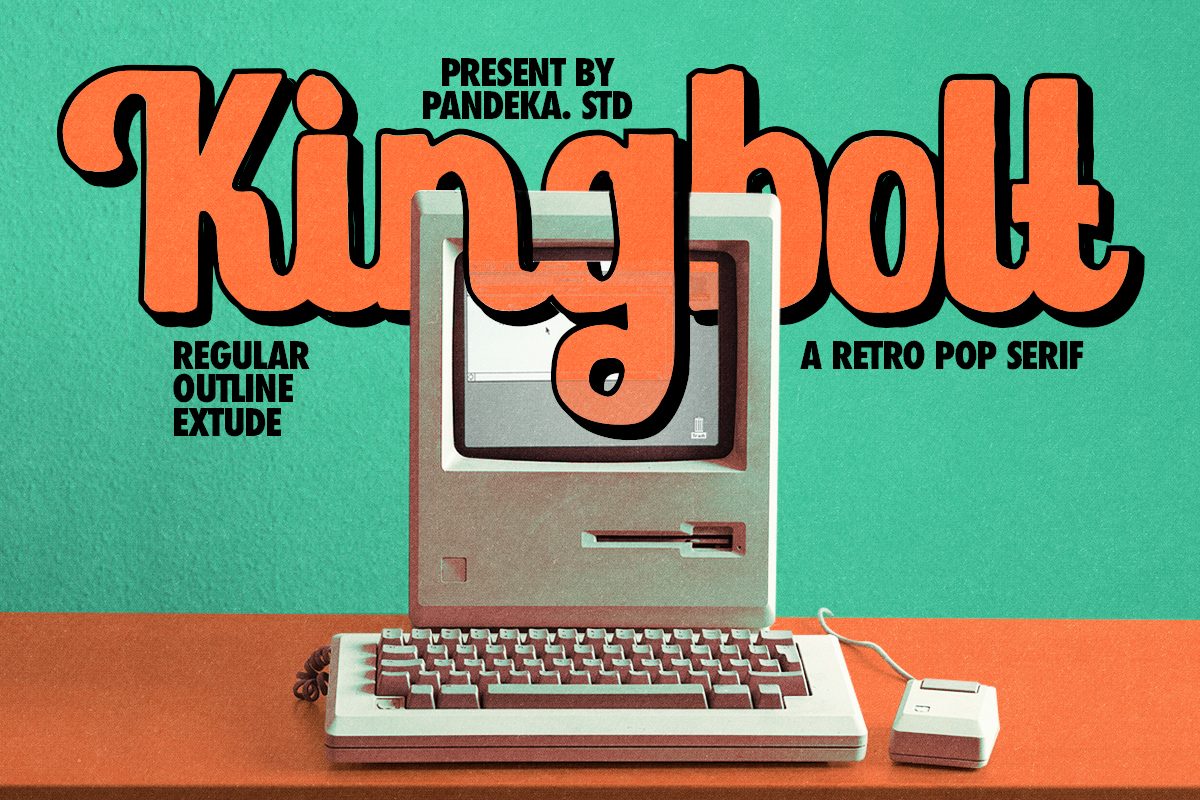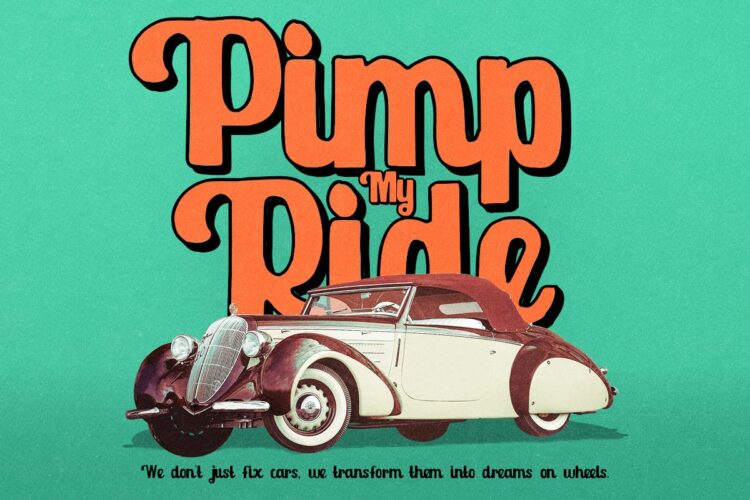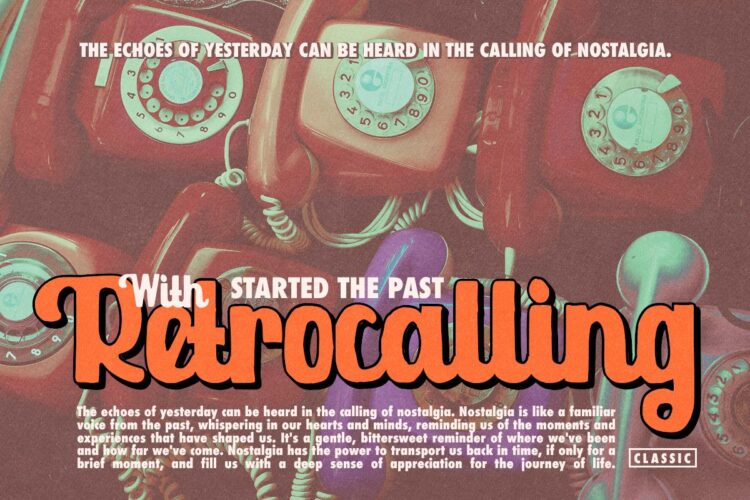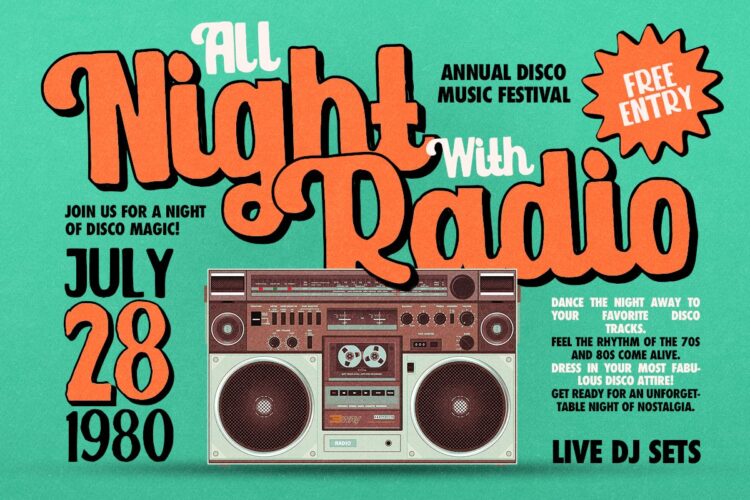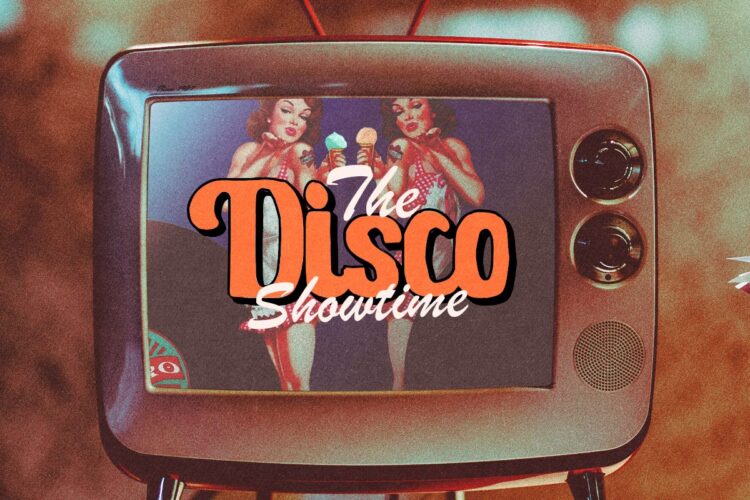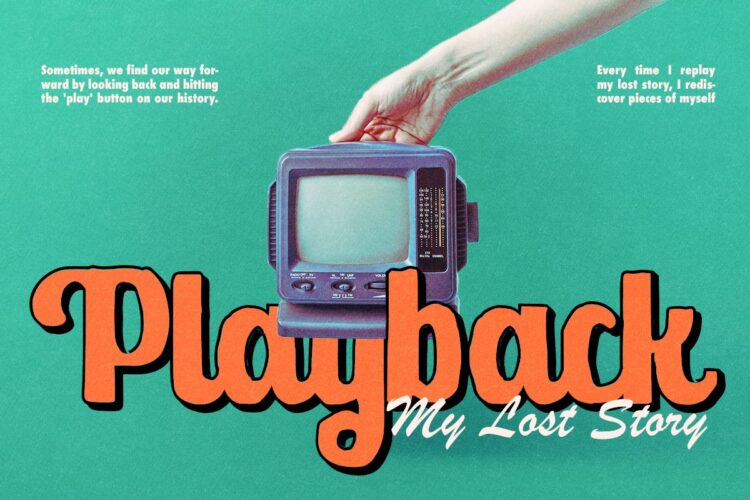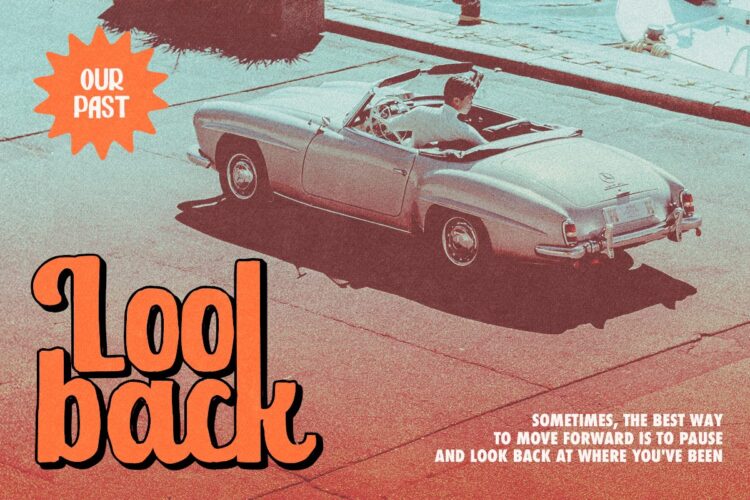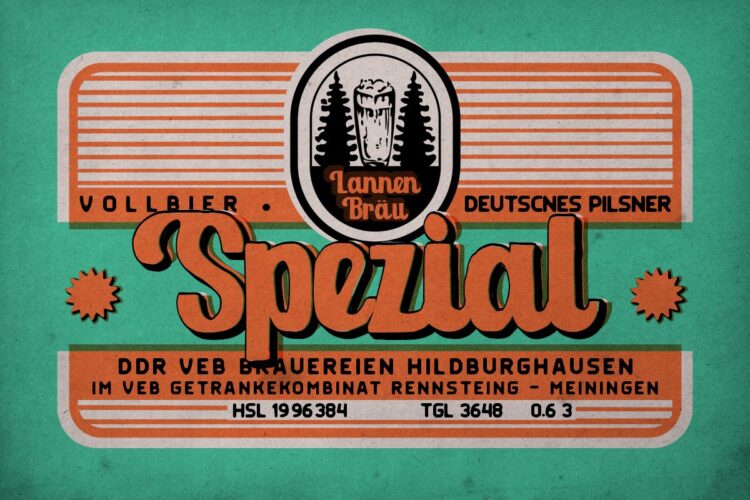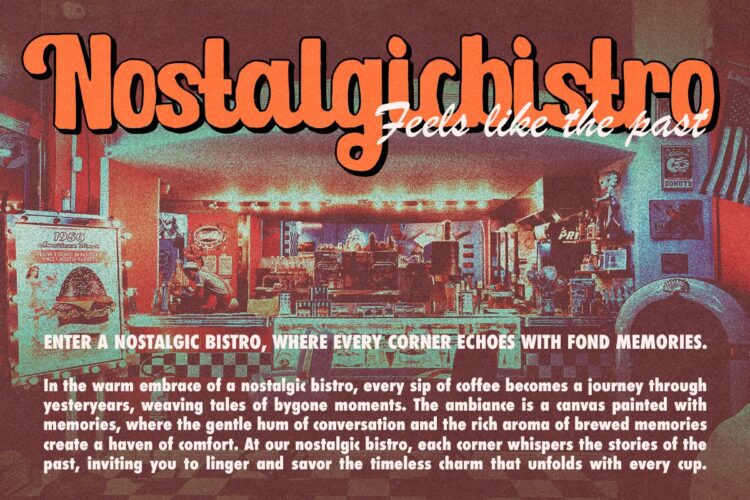
Kingbolt Regular
Kingbolt Extrude
Kingbolt Outline
Kingbolt Retro is a handdrawn retro bold font that contain Uppercase, Lowercase, Numerals, Accents, Punctuation and Alternate. Also this font contain Outline and Extrude version. You can use to make a logo for branding, best for packaging design, and quotes. This font also already PUA Encoded.
• Regular, Outline and Extrude version
• Unique Letterforms
Kingbolt – Vintage Retro Font